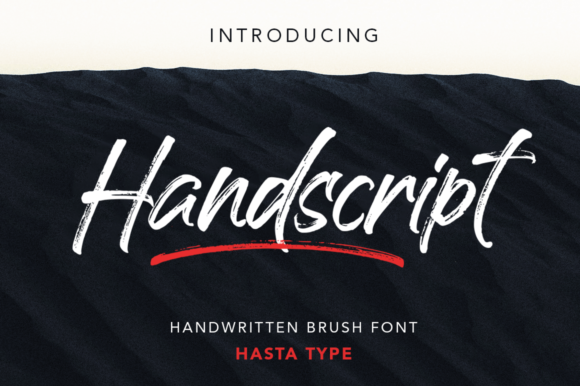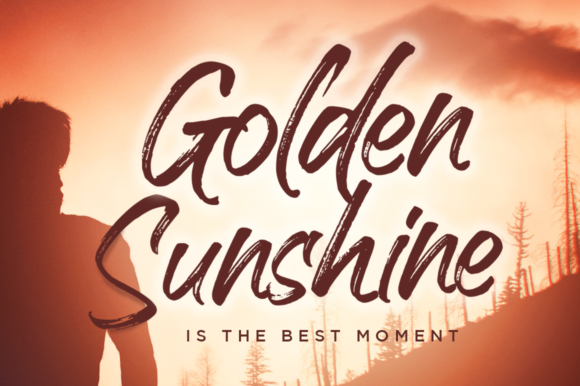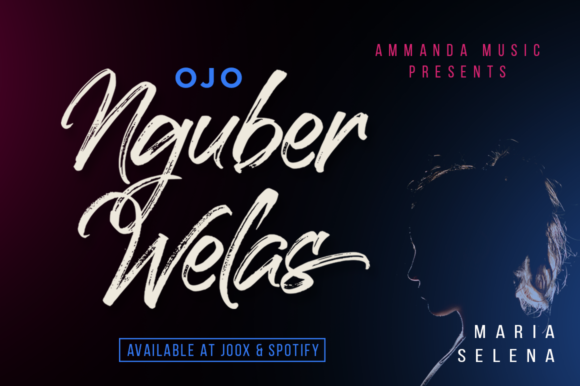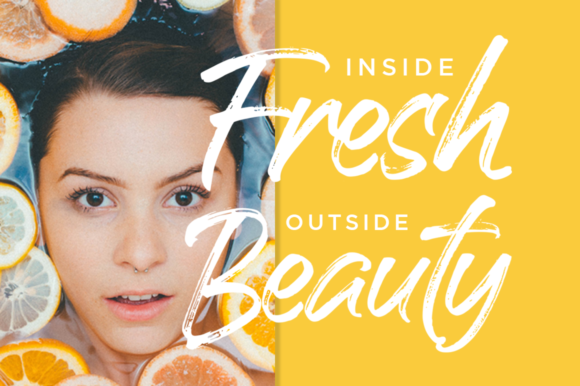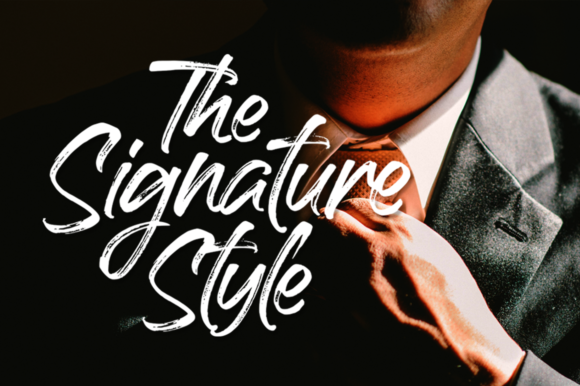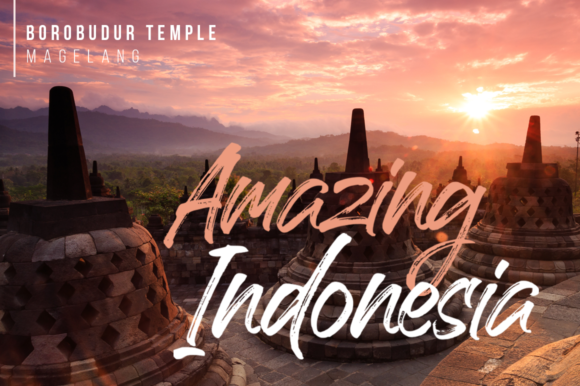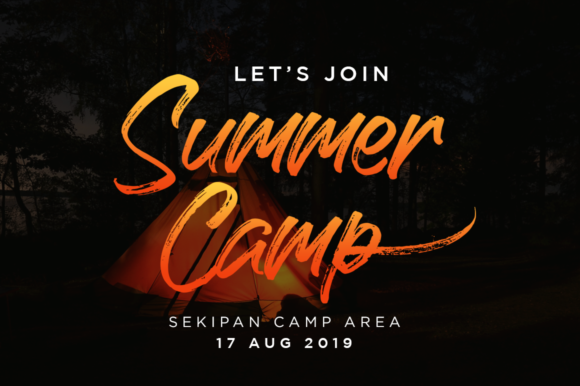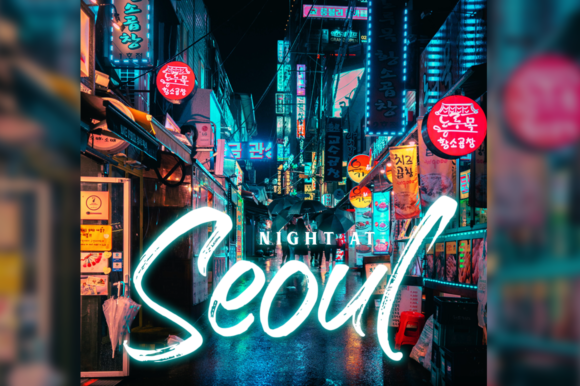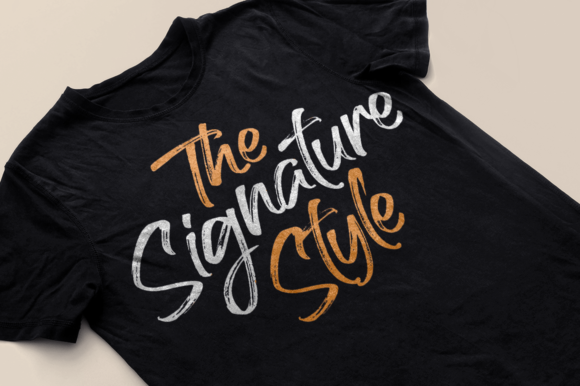
HomeScript FontsHandscript Font Script Fonts Handscript Font FacebookXPinterestWhatsApp Handscript Font Poster 2 Handscript Font Poster 3 Handscript Font Poster 4 Handscript Font Poster 5 Handscript Font Poster 6 Handscript Font Poster 7 Handscript Font Poster 8 Handscript Font Poster 9 About Handscript Font Handscript is a handwritten brush font with amazing textures. Get inspired by its bold and authentic charm! DOWNLOAD NOW People also explored Heliconia Font Sketcher Font Mushroom Font Manoria Font Sunflow Font Sunnylise Font Milkhouse Font Balance Font PN Nugatory Font 371 0 TagsHandscript Font Previous articleSpice Girl FontNext articleGladyss Font LEAVE A REPLY Cancel reply Comment: Please enter your comment! Name:* Please enter your name here Email:* You have entered an incorrect email address! Please enter your email address here Website: Save my name, email, and website in this browser for the next time I comment. Personal Use Free Starter Personal Use Free Read more about this font Hashira Mt Personal Use Free Read more about this font Artisan Signature Personal Use Free Read more about this font Nulshock Bold Personal Use Free Read more about this font BLOG Best Fonts for YouTube Videos: Make Your Thumbnails Stand Out Best Fonts for YouTube Videos: Make Your Thumbnails Stand Out Choosing the right font can make a massive difference in how your YouTube videos perform.... Modern Sans-Serif Fonts That Brands Love in 2025 Free vs Paid Fonts: Why Investing in Premium Fonts Is Worth It To increase your work productivity, choose the most readable fonts.